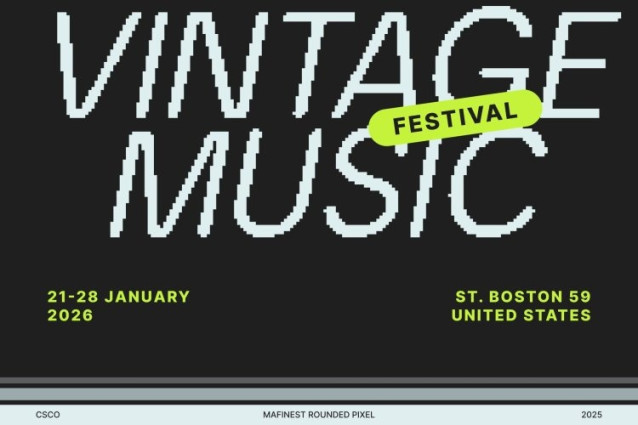
Mafinest Rounded Pixel Font
Mafinest Rounded Pixel Font This is a modern sans serif display font built with clean grotesk structure and precise geometric form. Its polished appearance brings a professional, contemporary, and visually captivating feel perfect for branding, editorial layouts, posters, and modern creative work that demands clarity and strong visual identity.
8-Bit Pixel Effect for a Fresh Digital Personality
Infused with a subtle yet expressive pixel effect, this font introduces a retro-digital 8-bit charm to its sleek design. This pixel texture enriches each character with a unique artistic touch, blending modern minimalism with digital nostalgia for a bold and distinctive visual impact.
Sleek Shapes with Soft Rounded Refinement
The rounded corners soften its geometric rigidity, creating a harmonious balance between precision and approachability. This combination enhances readability and adds warmth to the aesthetic, giving your titles, logos, and layouts a smooth, visually pleasing flow.
Perfect for Branding, Editorials, Posters, and Creative Projects
This Font shines across a wide range of applications from sophisticated branding and stylish editorials to expressive posters and digital-centric designs. Its fusion of clean grotesk structure, modern geometry, and 8-bit pixel personality ensures your work stands out with sophistication, creativity, and unmistakable contemporary charm.